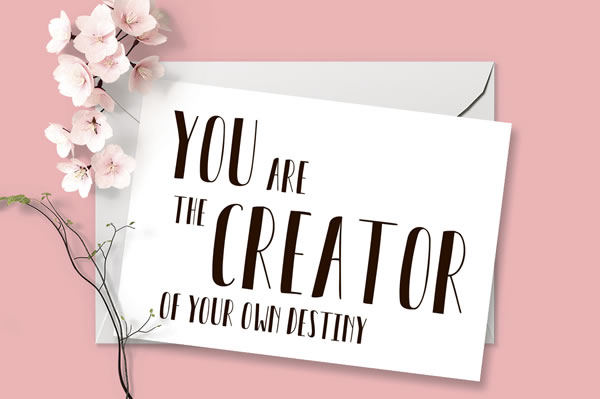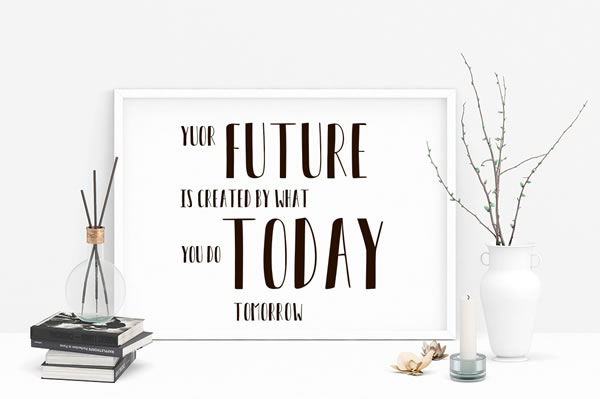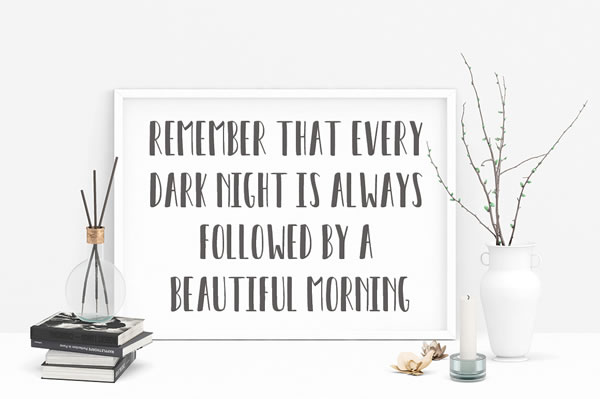
Introduction to Modigirl Font
Have you ever been stuck in a creative rut, scrolling through your design resources, searching for that perfect font to elevate your project? For many designers, the search is over with the discovery of the beautiful, handmade Modigirl Font. This charming font is not only easy on the eyes but also conveys a sense of whimsy and playfulness, making it perfect for a wide range of creative projects.
Whether you’re designing posters, t-shirts, or wedding invitations, the Modigirl Font is sure to bring a unique touch to your work. Its high-quality design and transparent background make it a valuable resource for designers looking to add an extra layer of sophistication to their designs. And the best part? It’s available for free download, making it an accessible design resource for creatives of all levels.
Key Features of Modigirl Font
- High-quality design with a unique and playful style, perfect for creative projects and design resources.
- Features a transparent background, making it ideal for use on custom designs, illustrations, and graphics.
- Perfect for use in digital designs, such as logos, icons, and graphics, as well as print materials like business cards and brochures.
- Unique characteristics include a bold and playful personality, making it perfect for creative projects and design resources.
Honest Review: Modigirl Font
As a designer, I’ve had the chance to work with various fonts for my creative projects, and I’m excited to share my thoughts on the Modigirl Font. I downloaded it for free, which was a great starting point for my evaluation.
The first thing I noticed about the Modigirl Font is its high quality. The font is crisp, clean, and has a nice texture that adds depth to any design. It’s perfect for creating eye-catching headlines and titles for my projects.
Here are some things that work well about the Modigirl Font:
- ✨ Versatility: The font is suitable for various design styles, from modern to vintage.
- ✨ Customization: It has a wide range of weights and styles that can be easily combined to create a unique look.
- ✨ Transparency: The font includes a transparent background option, which makes it easy to use with any background image or color.
- ⚠️ Limited character set: The font lacks some special characters, which can be a problem if you’re working on a project that requires them.
- ⚠️ Compatibility issues: I experienced some compatibility problems when using the font with certain software.
Overall, the Modigirl Font is a solid design resource that can add a touch of sophistication to your creative projects. While it has some limitations, its high quality and versatility make it worth considering for your next design project.
Tips for Getting the Most Out of Modigirl Font
Use the Modigirl Font with a transparent background for a clean and minimalist look.
Experiment with different font sizes and styles to add depth and visual interest to your design.
The Modigirl Font is perfect for designing social media graphics, blog posts, and marketing materials.
Use it to create eye-catching titles, headings, and body text for your creative project.